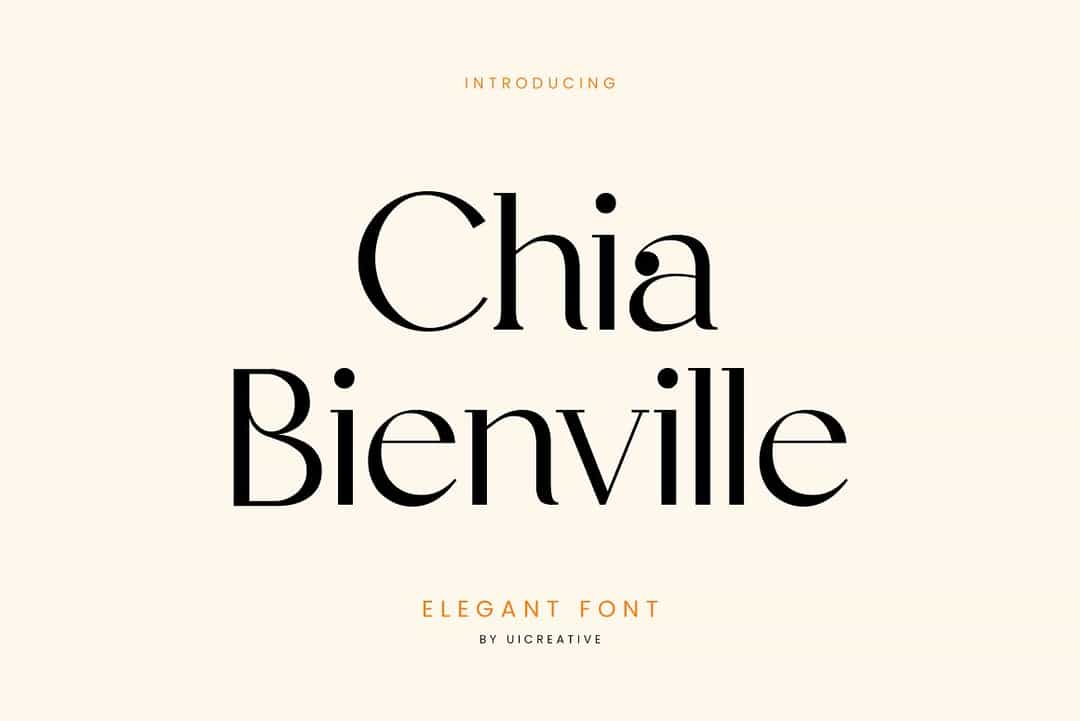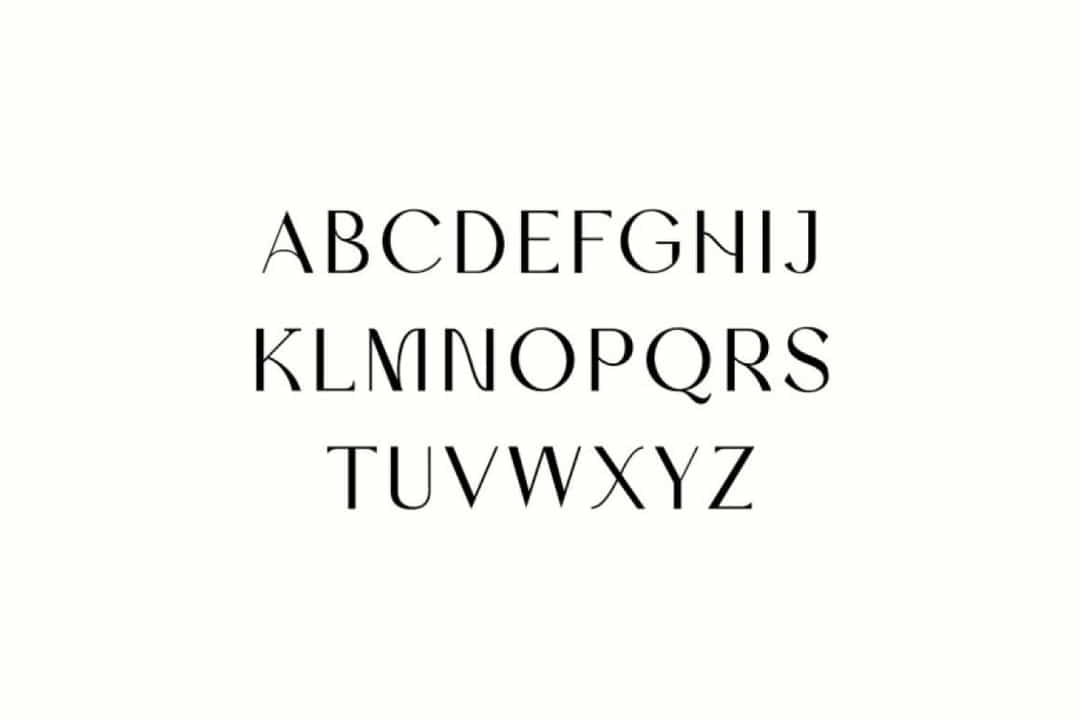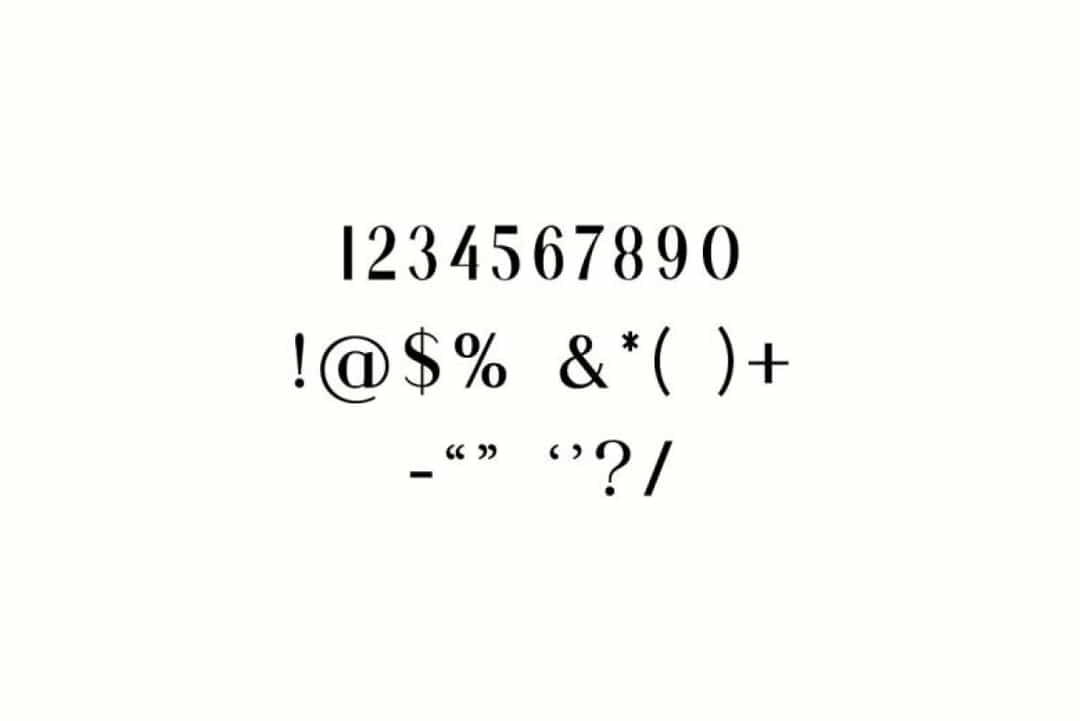
Chia Bianville can be described as an elegant serif typeface that exudes class and modernity, making it suitable for many different applications such as logo design, signature creation, stationery wedding invites, typography quote magazines or book covers, headers for websites and clothing packaging designs, branding as well as many others.